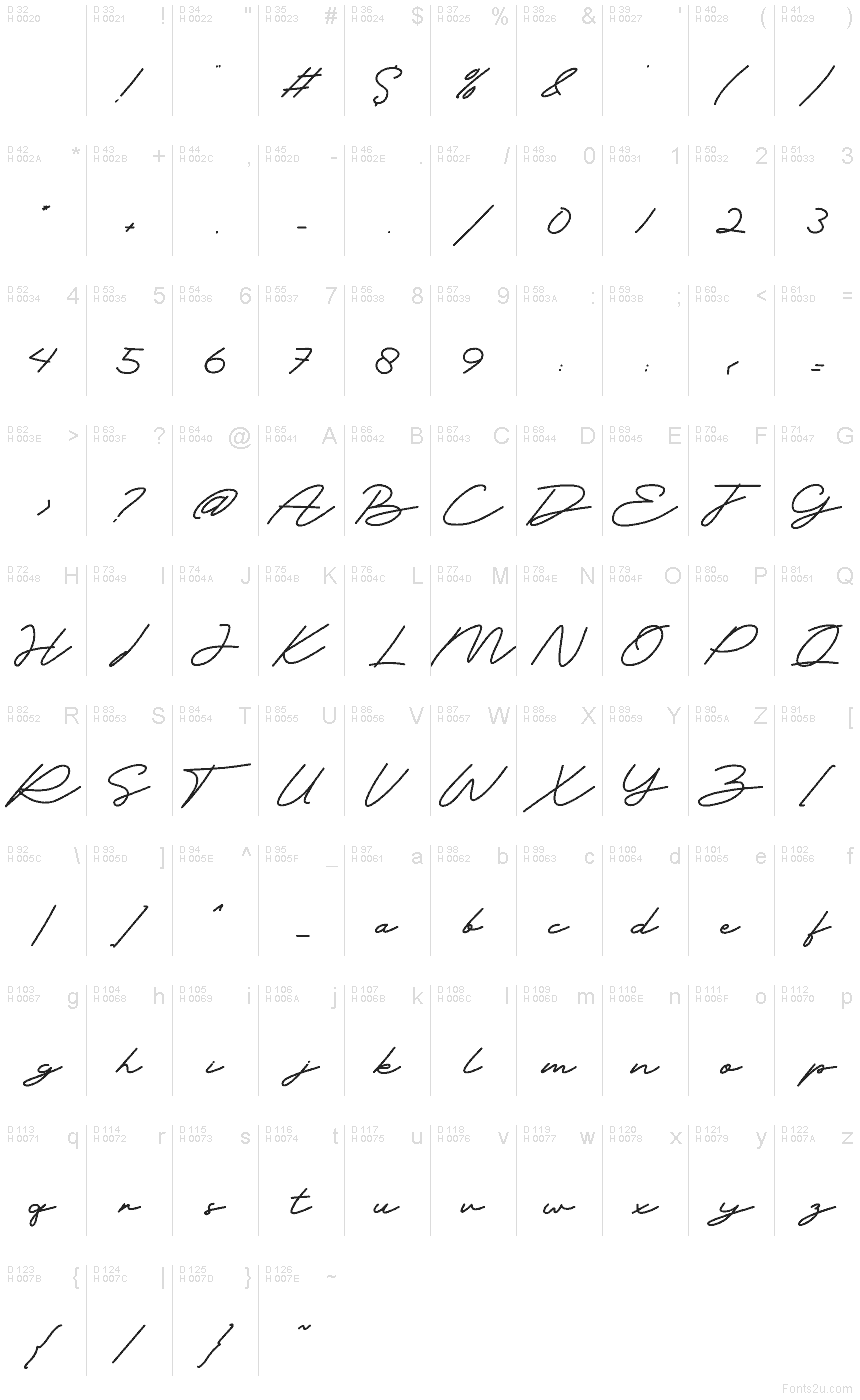
Final Parade Script
Final Parade Script font by PutraCetol Studio is a free handwritten font with impressive style and light weight. The letters sport fluid lines and an elegant overall style, making this typeface ideal for those long-prepared projects in which words say it best.
Charm your audience through captions, headings, typography art, titles for presentation slides, invitations, greeting cards, or business cards. Use it to move viewers through advertisements where the product doesn’t seem to be enough on its own or in any part that needs a shine-up in brand logos.